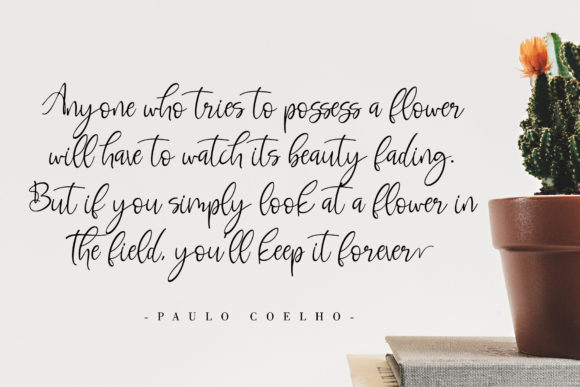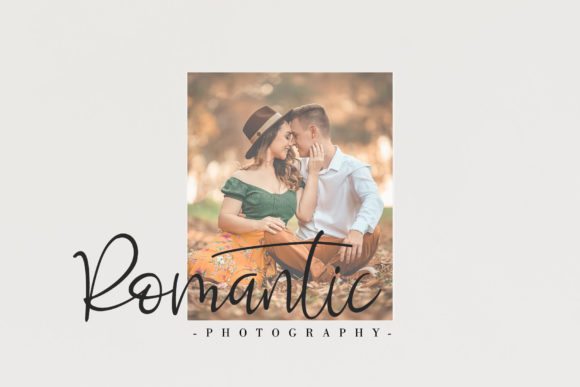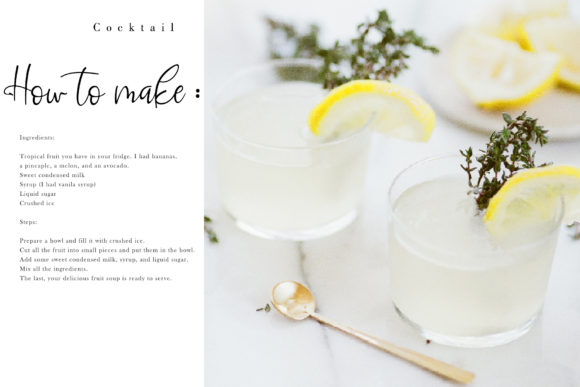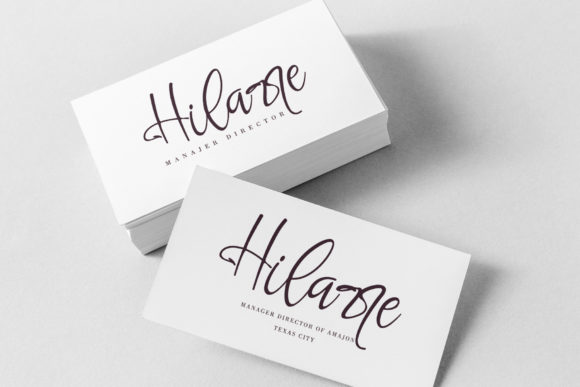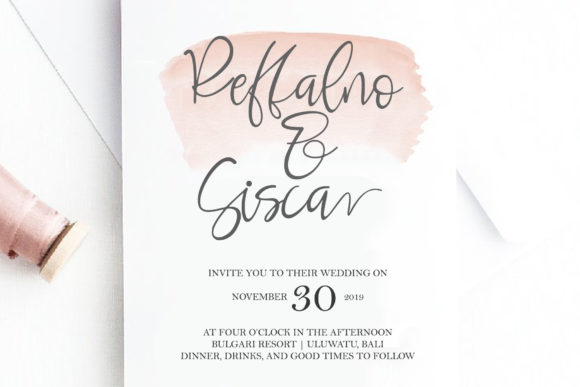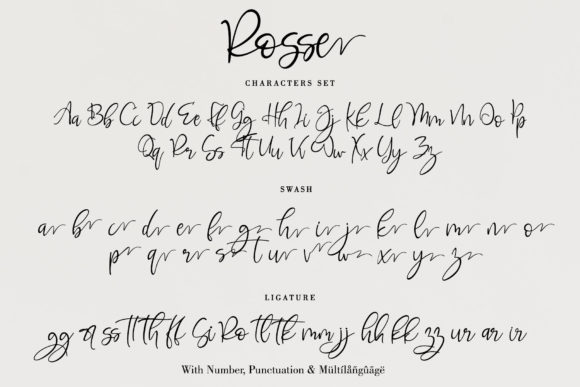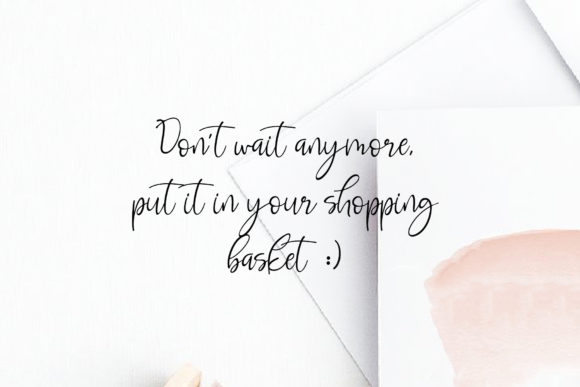
HomeScript FontsRosse Font Script Fonts Rosse Font FacebookXPinterestWhatsApp Rosse Font Poster 2 Rosse Font Poster 3 Rosse Font Poster 4 Rosse Font Poster 5 Rosse Font Poster 6 Rosse Font Poster 7 Rosse Font Poster 8 About Rosse Font Rosse features an irregular baseline, making it the perfect font to give your designs a fun and unique feel! DOWNLOAD ON CREATIVE FABRICAThis font is sold and delivered by Creative Fabrica. Font Canyon may earn a commission if you buy through this link. People also explored Kumba Expanded Font Aura Font Avocado Diet Font Asia Font Farmhouse Country Font Orbete Font Kane Font Clairdelune Font Back Time Font 303 0 TagsRosse Font Previous articleBelisha FontNext articleBeauty Dina Font LEAVE A REPLY Cancel reply Comment: Please enter your comment! Name:* Please enter your name here Email:* You have entered an incorrect email address! Please enter your email address here Website: Save my name, email, and website in this browser for the next time I comment. Personal Use Free Sea Gardens Personal Use Free Read more about this font The Relapse Personal Use Free Read more about this font Doriath Personal Use Free Read more about this font Zephan Personal Use Free Read more about this font BLOG Exploring Font Trends Shaping Communication in the Digital Era Fonts, like all design elements, are subject to trends. They play a crucial role in communicating a brand's personality,... How to Install and Use Fonts on Windows, macOS, and Web Projects Fonts That Capture the Spirit of New York City Best Fonts for T-Shirt Design – Top 2025 Picks